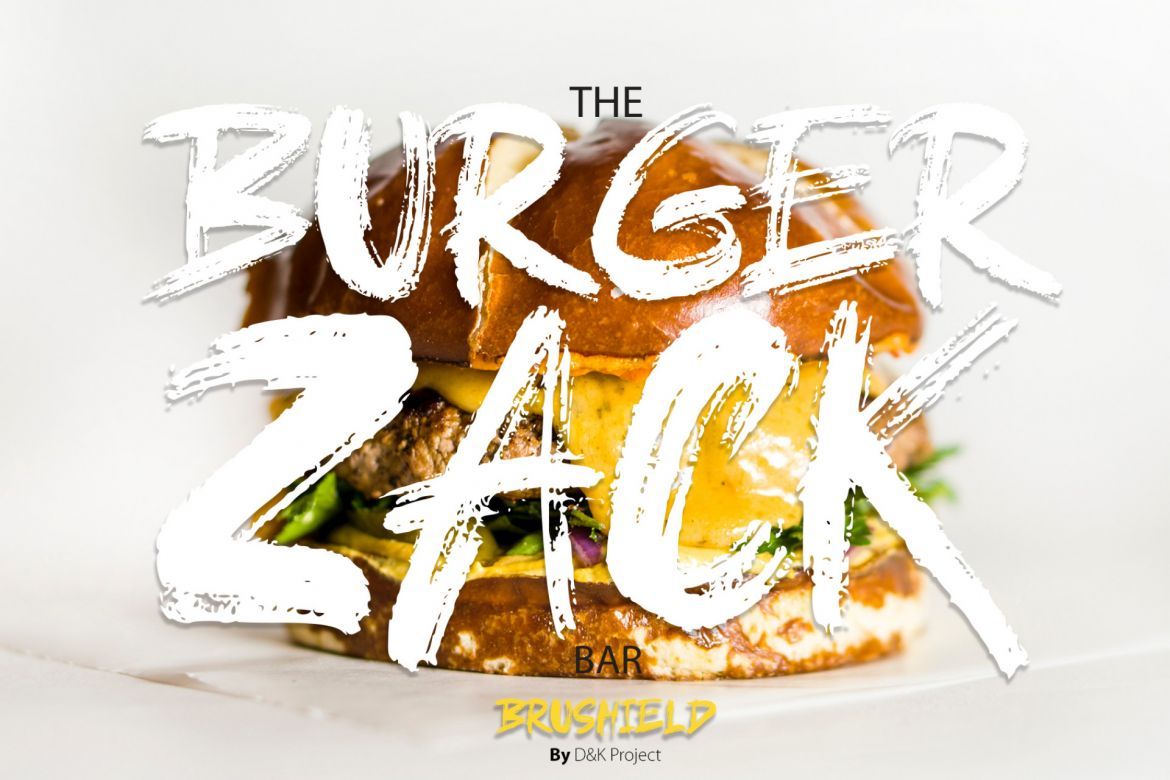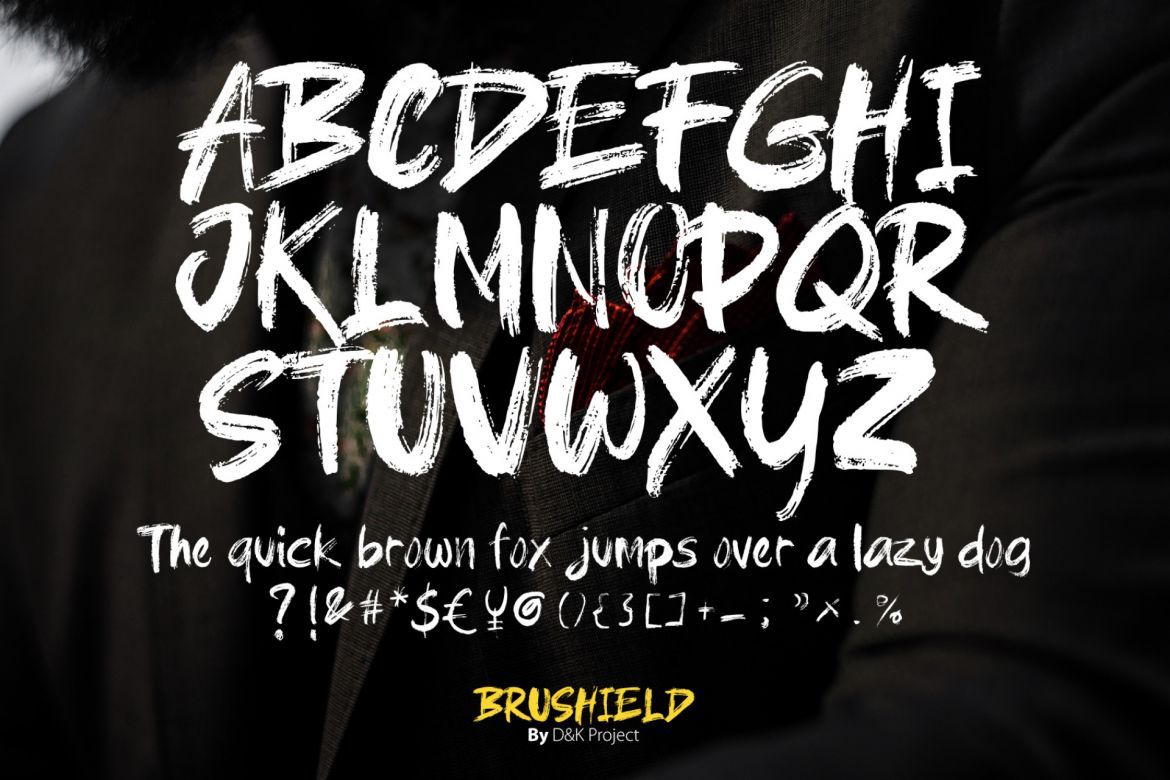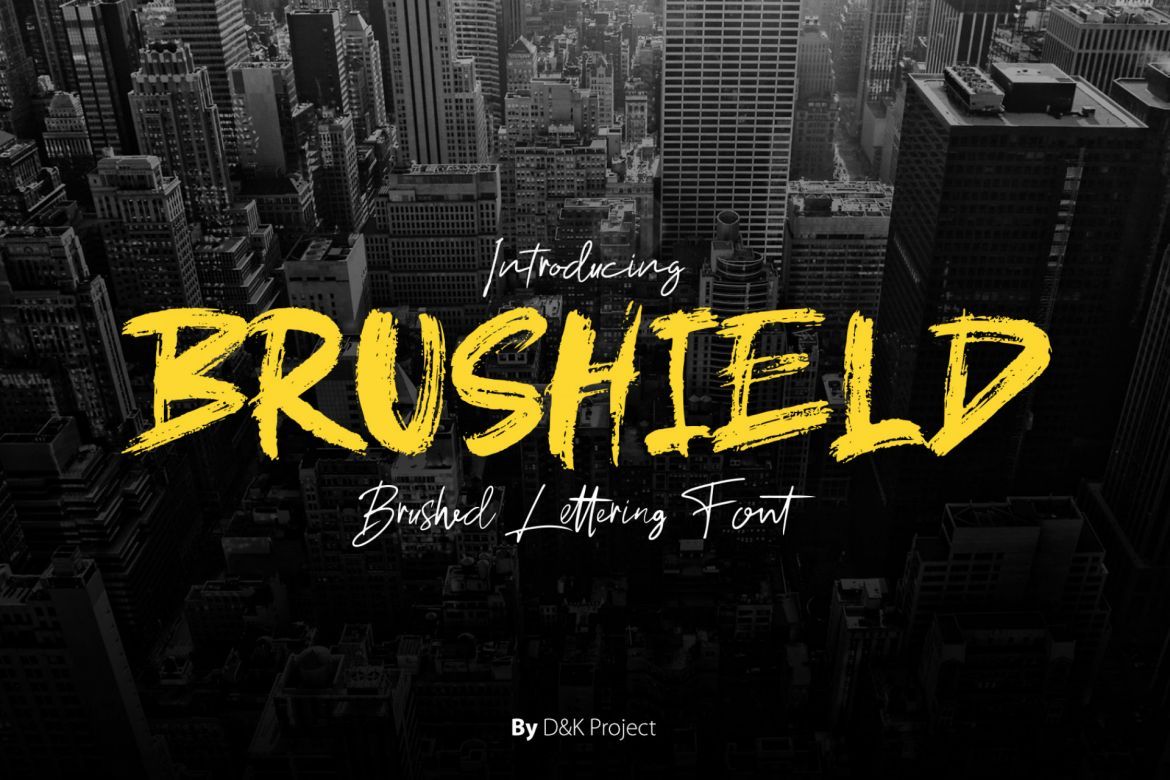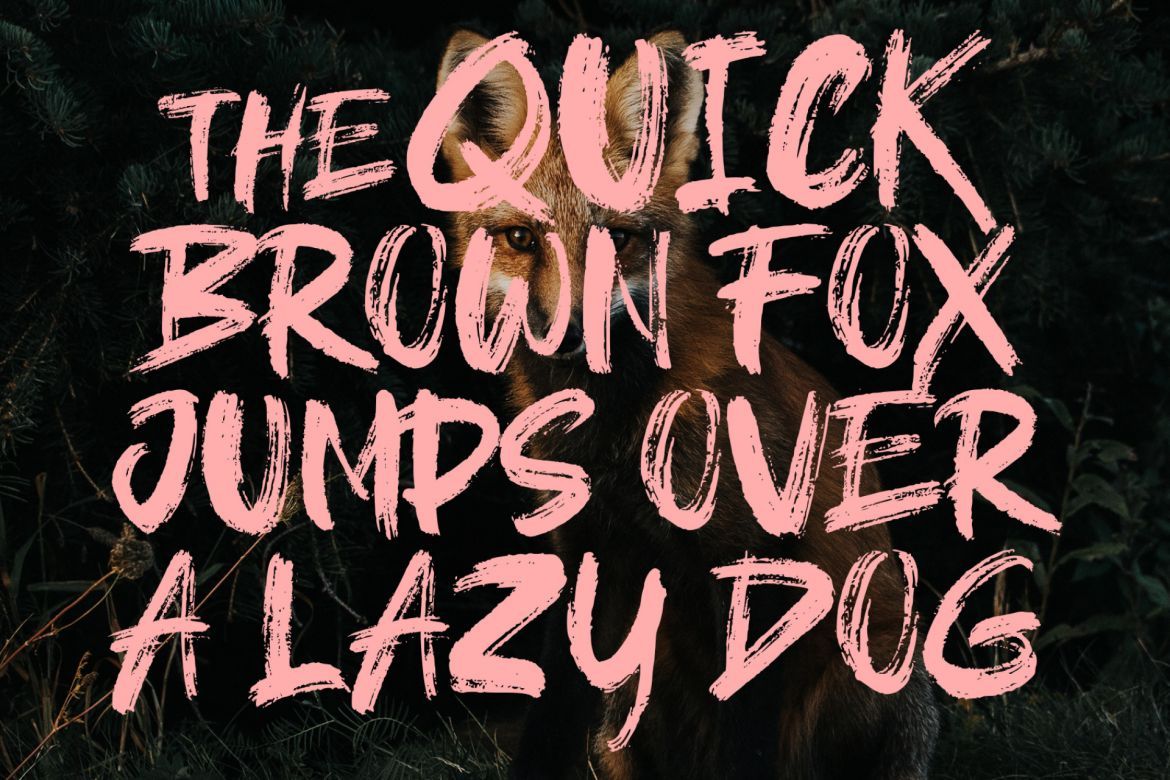
Brushield a brush font
Brushield is brushes font basic from brushpen, is UNIQUE and very powerfull. Brushield is perfect for logotype, poster, and many other vintage or modern project.